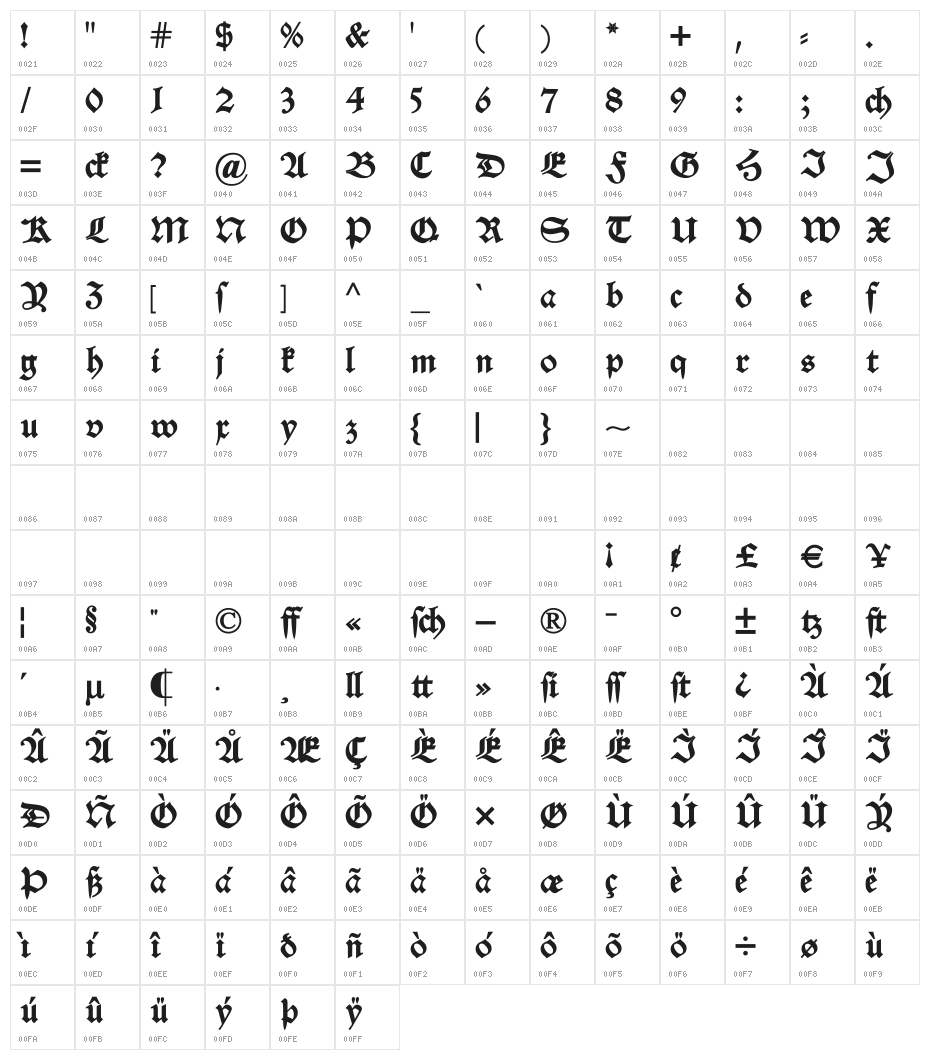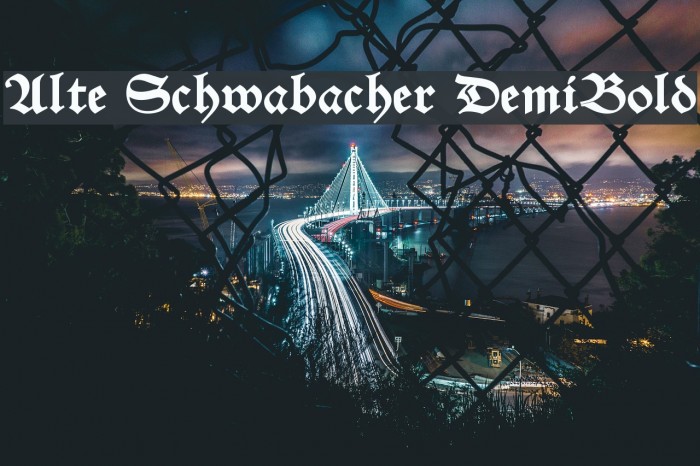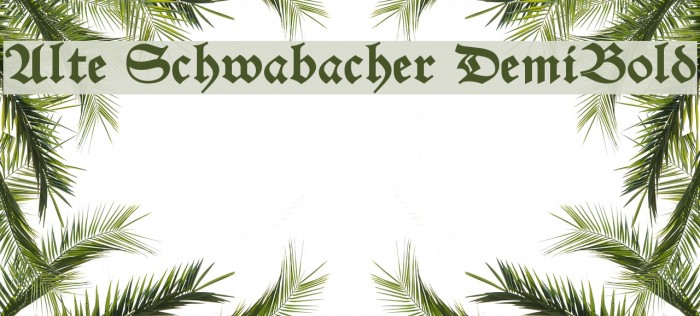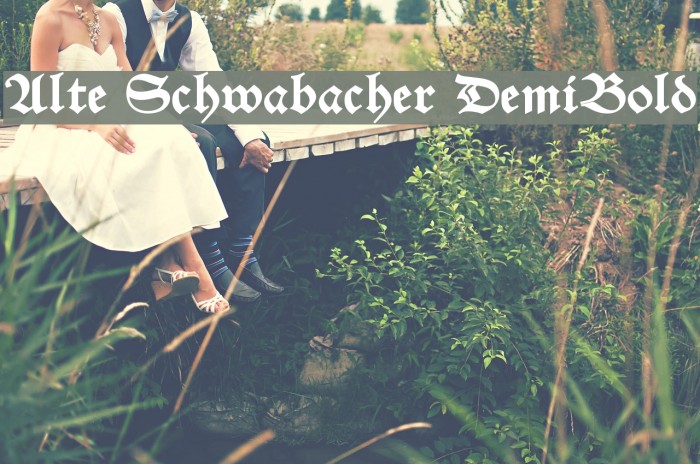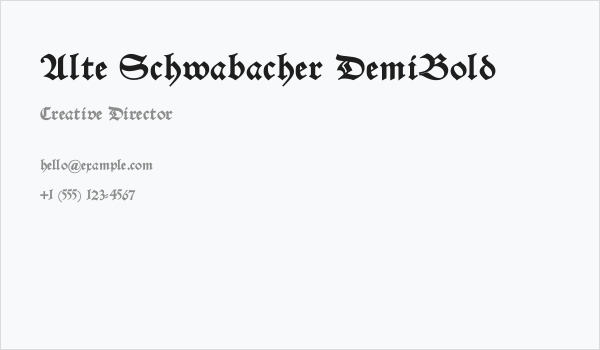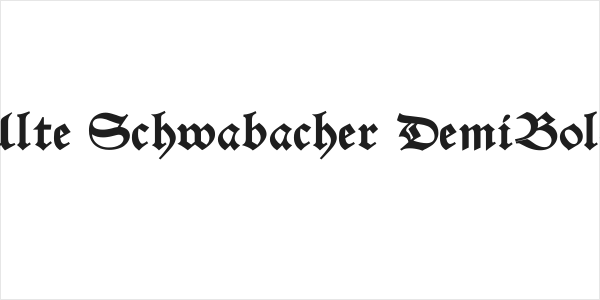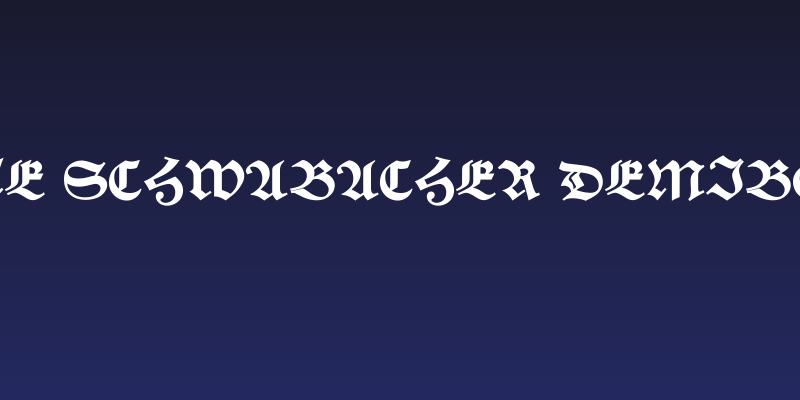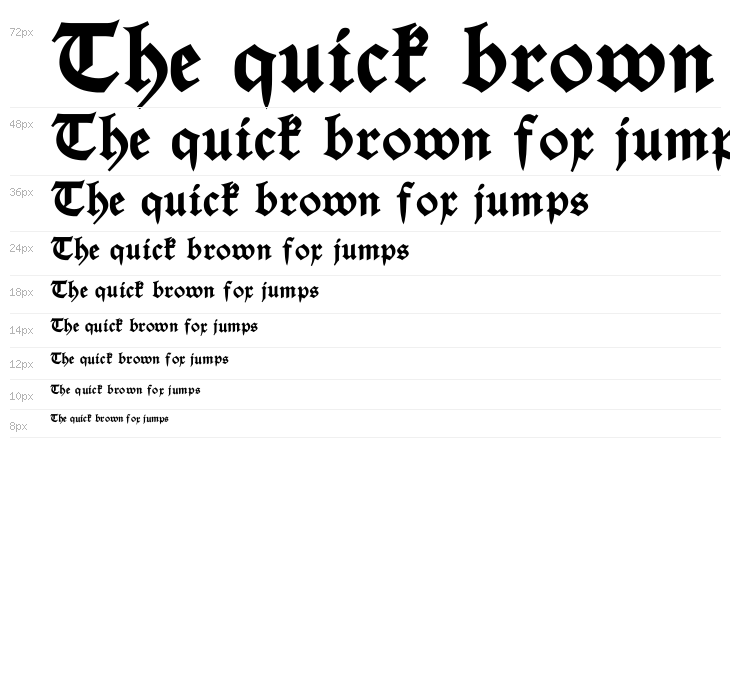
Alte Schwabacher DemiBold Font
Alte Schwabacher DemiBold Description
This font embodies the traditional Blackletter style, characterized by its ornate and intricate letterforms. The strokes are bold and angular, with a distinct medieval aesthetic. Each character features sharp, pointed serifs and a high degree of contrast between thick and thin lines, giving it a dramatic and formal appearance. The uppercase letters are particularly elaborate, with decorative flourishes that enhance their Gothic appeal. The lowercase letters maintain a consistent style, ensuring readability while preserving the font's historical charm. The numerals and special characters are equally stylized, fitting seamlessly with the overall design.